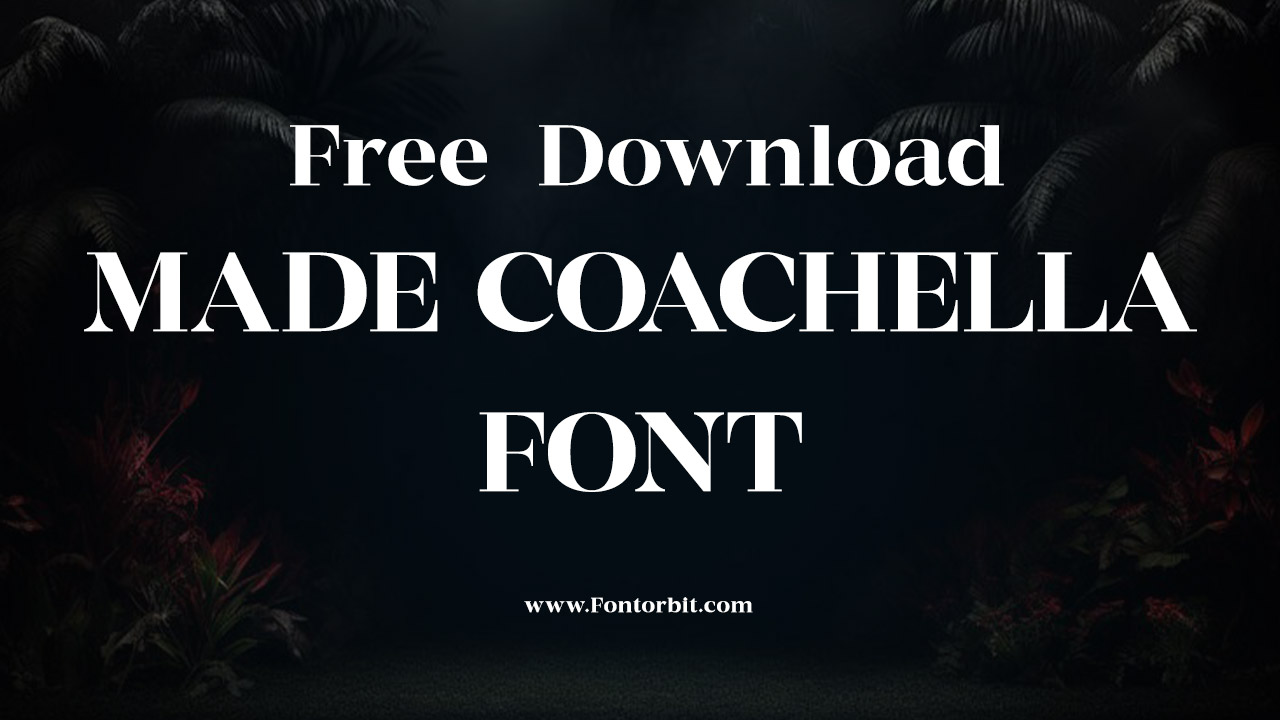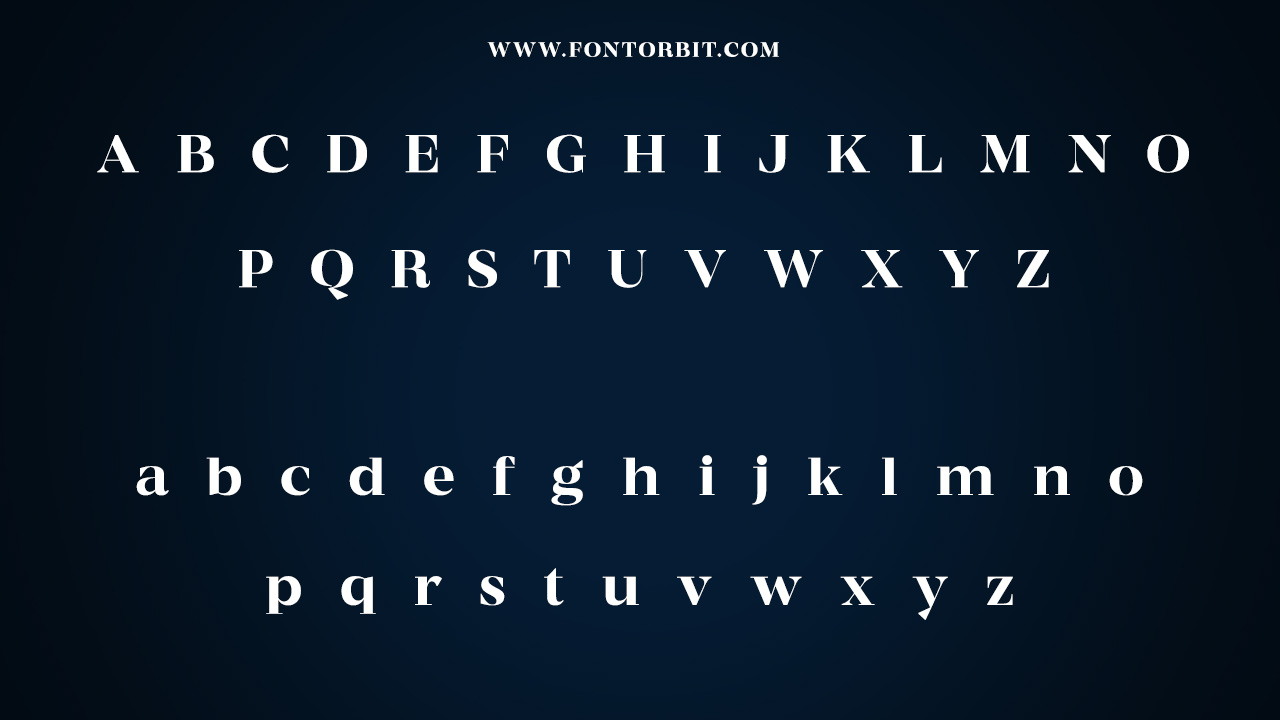
The Made Coachella Font, designed by MadeType, is a high-contrast serif typeface known for its vintage aesthetic and refined, hand-drawn feel. With its bold lines and subtly rounded corners, Made Coachella adds a touch of elegance and sophistication to your projects.
The Made Coachella Font Family
- MADE Coachella Thin
- MADE Coachella Light
- MADE Coachella Regular
- MADE Coachella Medium
- MADE Coachella Bold
- MADE Coachella Black
This high-contrast serif typeface excels in various sizes, making it ideal for striking headlines, sophisticated branding, and elegant editorial designs. Its vintage-inspired design elements provide a polished and classic look to any project.
- Fashion
- Wedding Invitations
- Books
- Magazines
- Photography
- Quotes
- Blog Headers
- Advertisements
Made Coachella Font shines in delivering a timeless, elegant touch to your designs. Its refined serifs and geometric shapes are perfect for high-impact branding, stylish editorial content, and any context where a sophisticated appearance is desired.
Made Coachella Font’s elegant and high-contrast design makes it an excellent choice for sophisticated and vintage-inspired projects. Select the weight that best fits your design needs, from Thin and Light for subtle text to Bold and Black for strong emphasis. Its versatile nature ensures it adds a polished and stylish touch to a variety of applications.
1.What Is The Made Coachella Font?
Made Coachella is a high-contrast serif typeface by MadeType. It is known for its vintage, refined design and elegant, hand-drawn elements.
3.What Are The Key Features Of The Made Coachella Font?
Made Coachella features high contrast, geometric serifs, and a vintage-inspired look, which are ideal for elegant and impactful design applications.
4.How To Use The Made Coachella Font In Design?
Use Made Coachella to create striking headlines, sophisticated branding, and elegant editorial content for a polished and classic appearance.